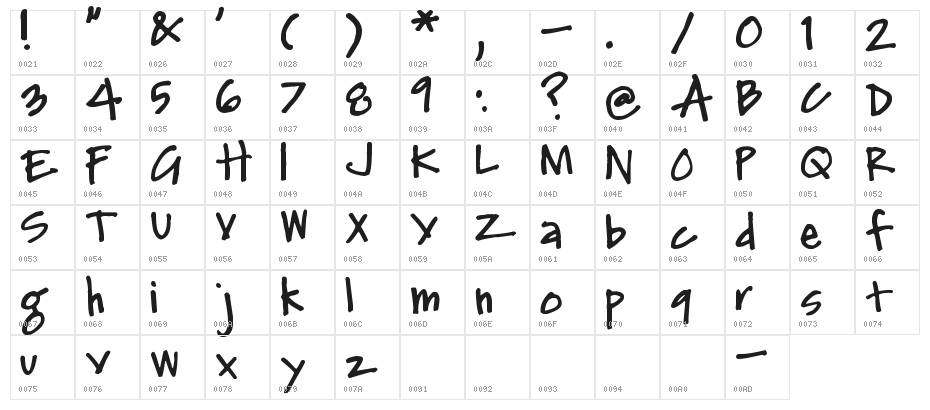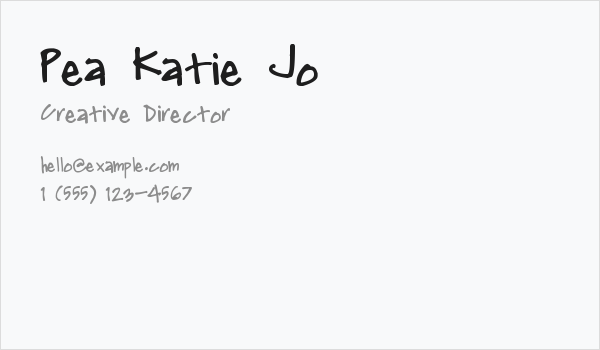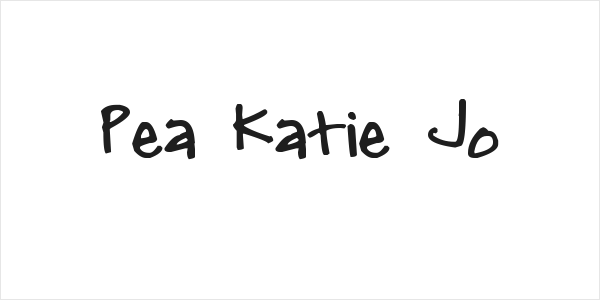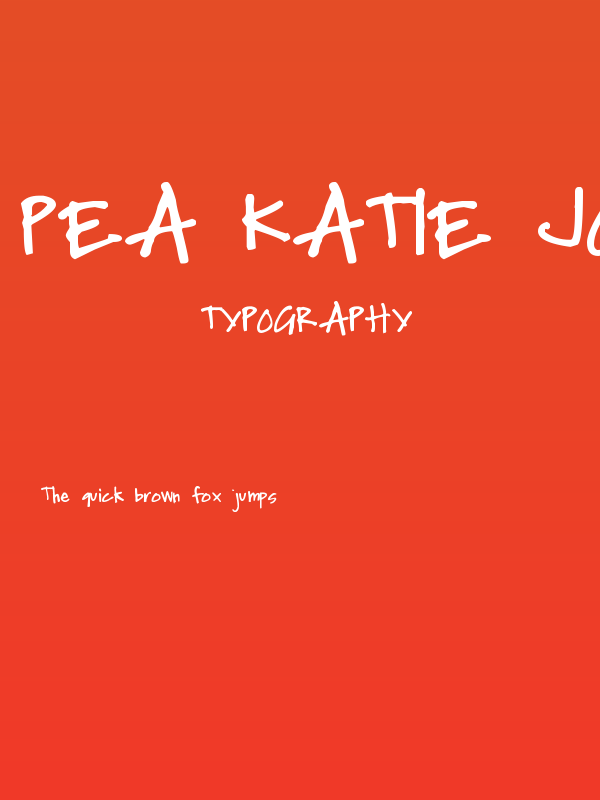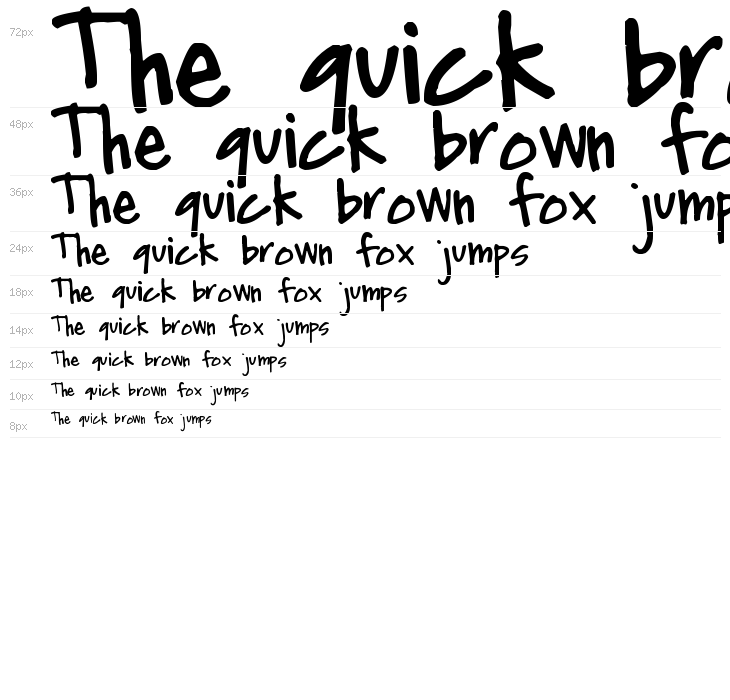
Pea Katie Jo Font
Pea Katie Jo Description
This font features a playful and casual handwritten style, characterized by its irregular and dynamic strokes. The letters have a natural flow, resembling a personal note or a quick sketch. The uppercase and lowercase letters maintain a consistent style, with rounded edges and slight variations in height and width, adding to its informal charm. The numerals and special characters follow the same handwritten aesthetic, making it suitable for projects that require a personal touch. The overall appearance is friendly and approachable, ideal for creative and informal designs.
| Proposed Projects | Ideal for greeting cards, personal notes, children's books, and informal branding. |